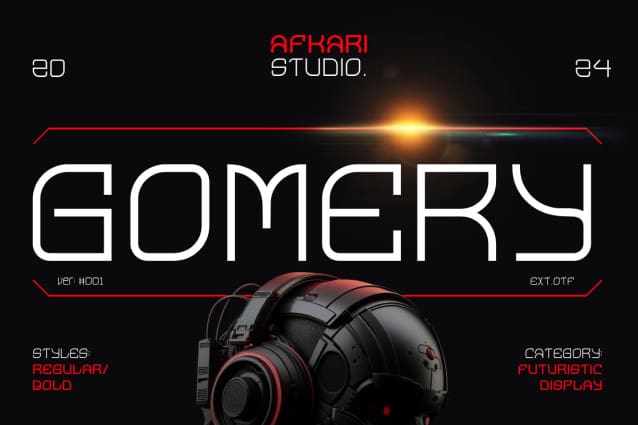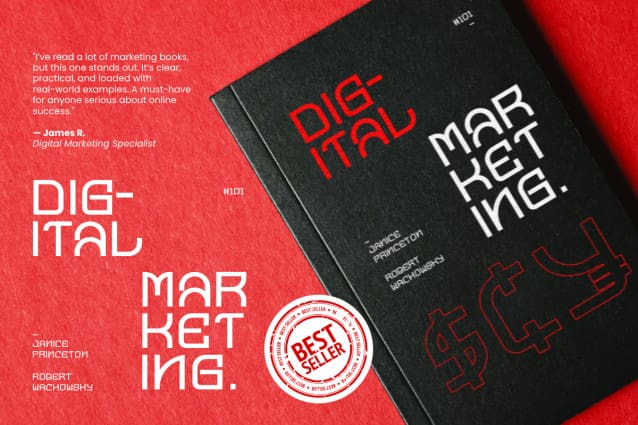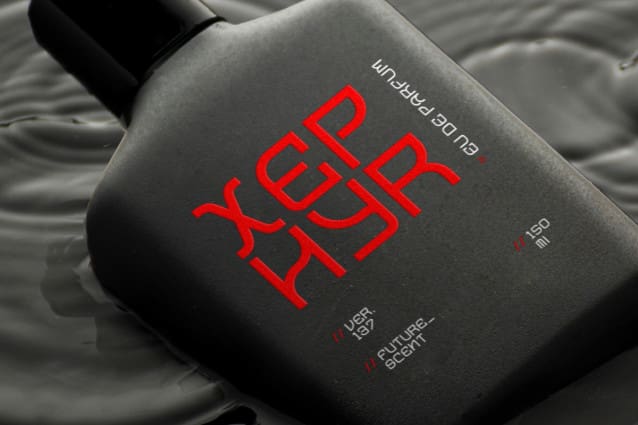
Gomery Futuristic Font
Gomery Futuristic Font – Modern Futuristic Display Font a cutting-edge display font designed to bring a sleek, modern, and futuristic edge to your projects. Perfect for tech-oriented branding, digital interfaces, and forward-thinking design, Gomery combines clean, geometric lines with striking curves, creating a bold presence that stands out in any layout.
Each character is meticulously crafted to balance readability with a stylish, sci-fi appeal, making it ideal for logos, posters, headlines, and digital content. Elevate your designs into the future with Gomery, where minimalism meets innovation.